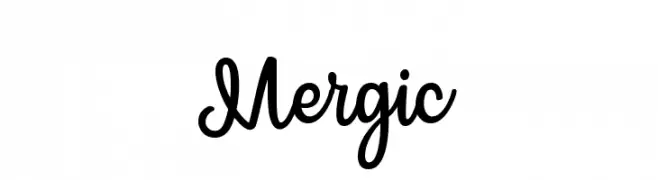
A dynamic dry brush font with expressive and energetic strokes.
A dynamic brush-style font with fluid, artistic strokes.
A playful, flowing script font with a handwritten feel.
A flowing, cursive font with a smooth, handwritten style.
A rugged, jagged font with a bold, edgy appearance.
A bold, gothic-inspired font with sharp, angular lines and dramatic serifs.
A bold, geometric font with a futuristic and modern design.
A bold, slanted font with a modern, dynamic style.
An elegant, flowing script font with a sophisticated, handwritten style.